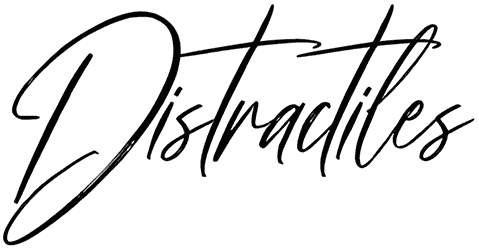
Distractiles Font
Distractiles is a cursive script font that lets you give a fresh breath to all of your creative content and diversifies any kind of visual work, including movie posters, illustrations, logos, merchandise, or stationery.